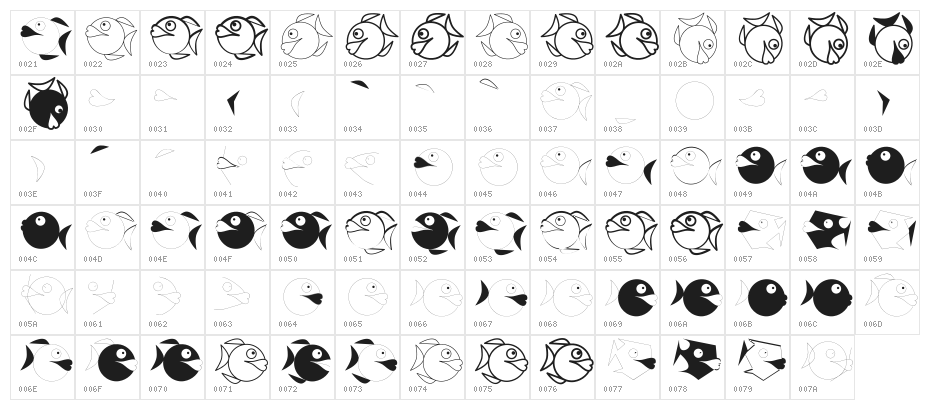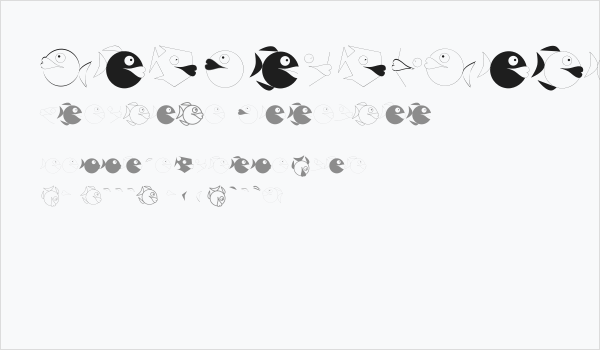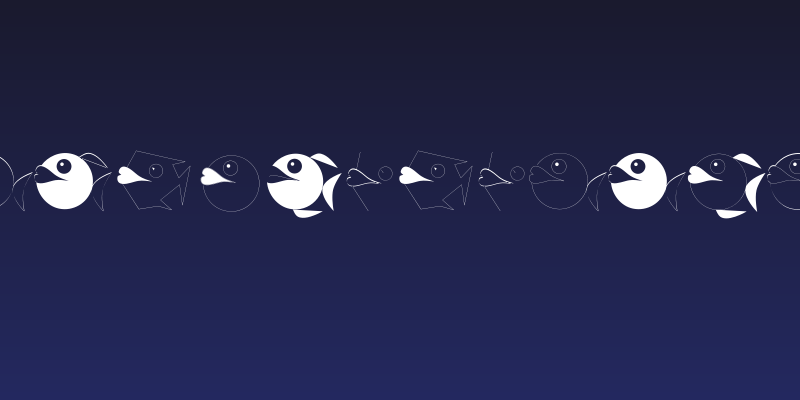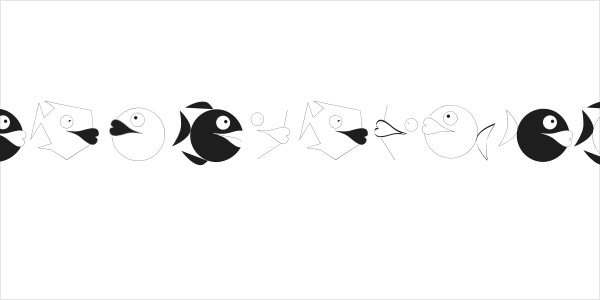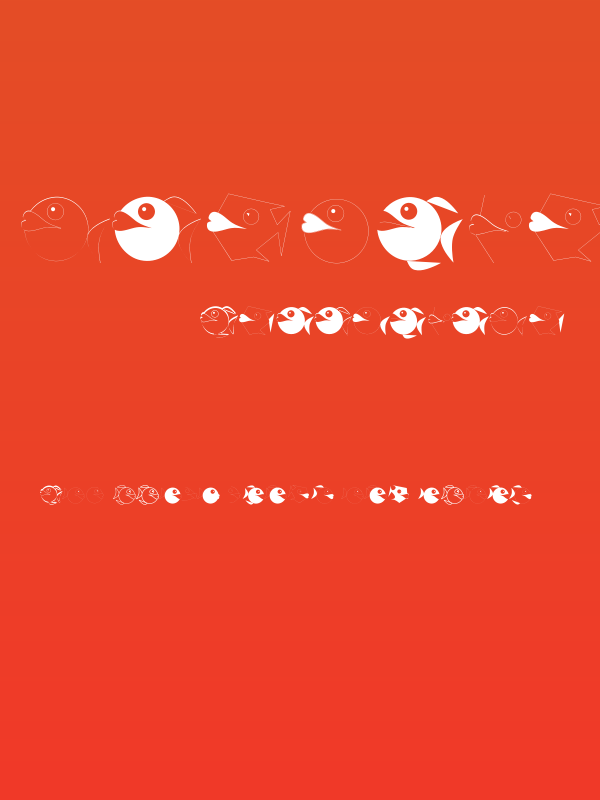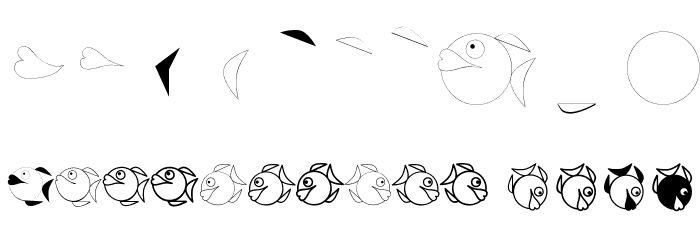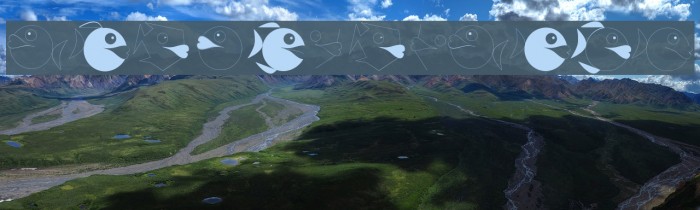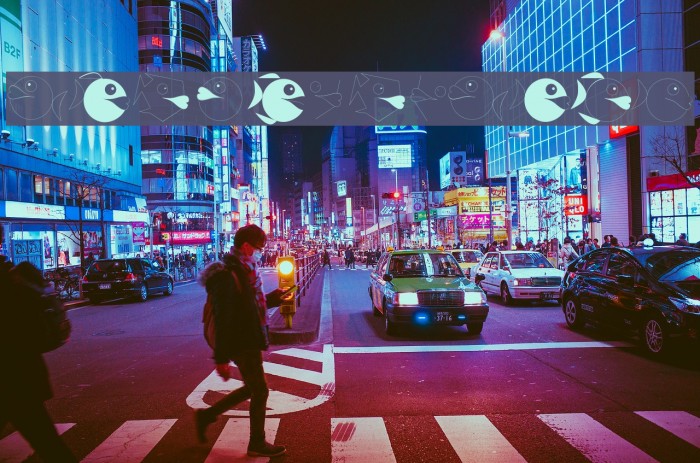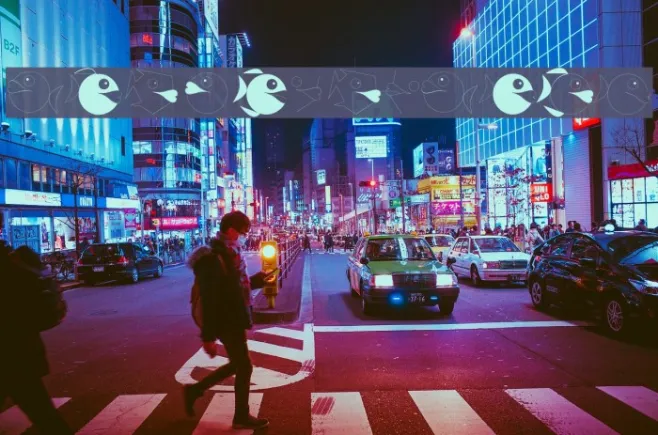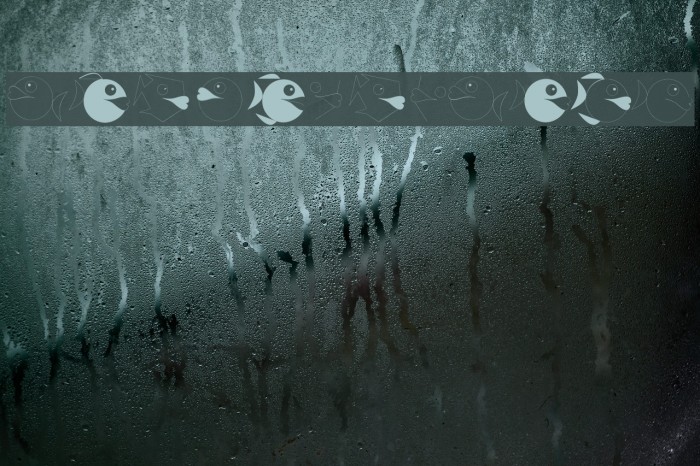
HowDrawAFish Font
HowDrawAFish Description
| Overall Style | Decorative, Playful, Hand-drawn |
| Use Case | Headlines, Logos, Themed graphics, Educational content |
| Proposed Projects | Children’s books, educational materials, playful branding, aquatic-themed posters, creative invitations. |